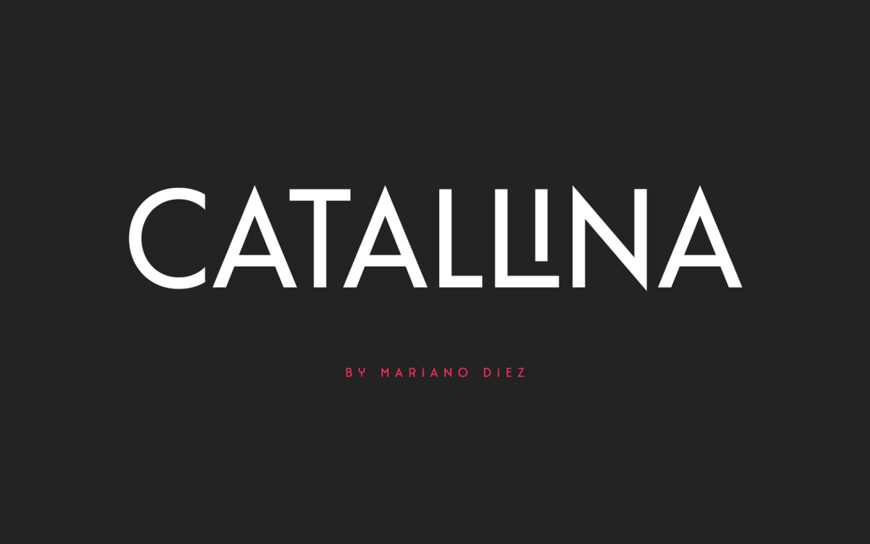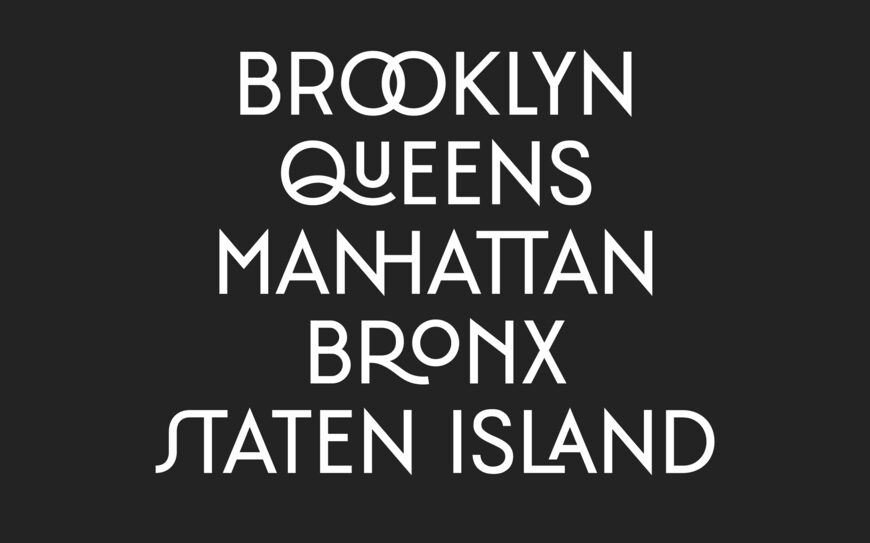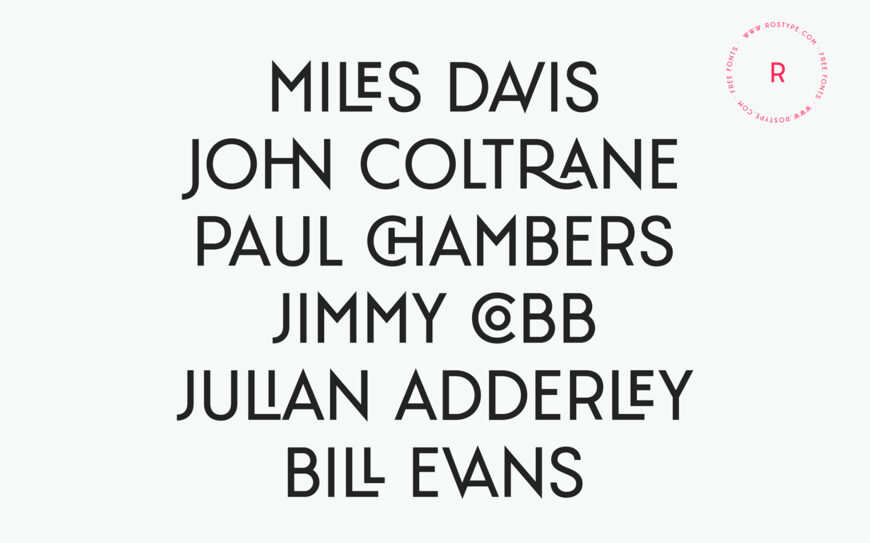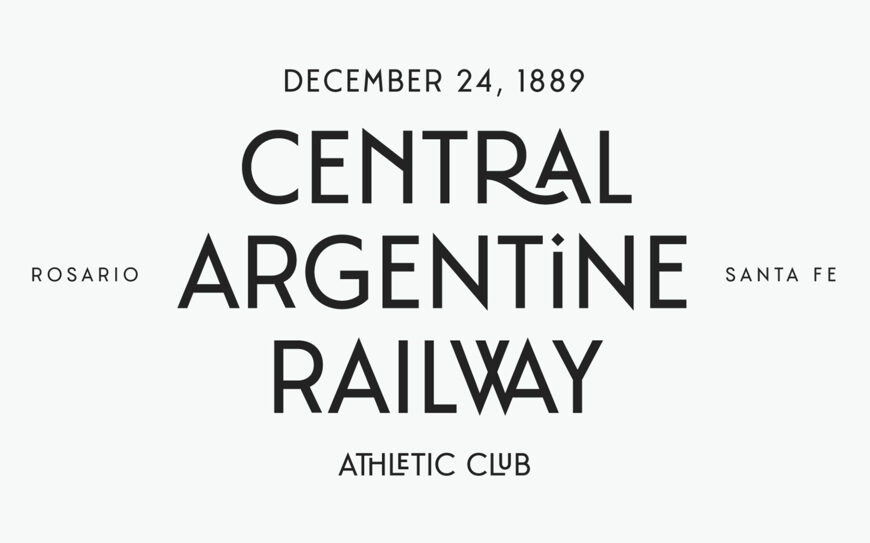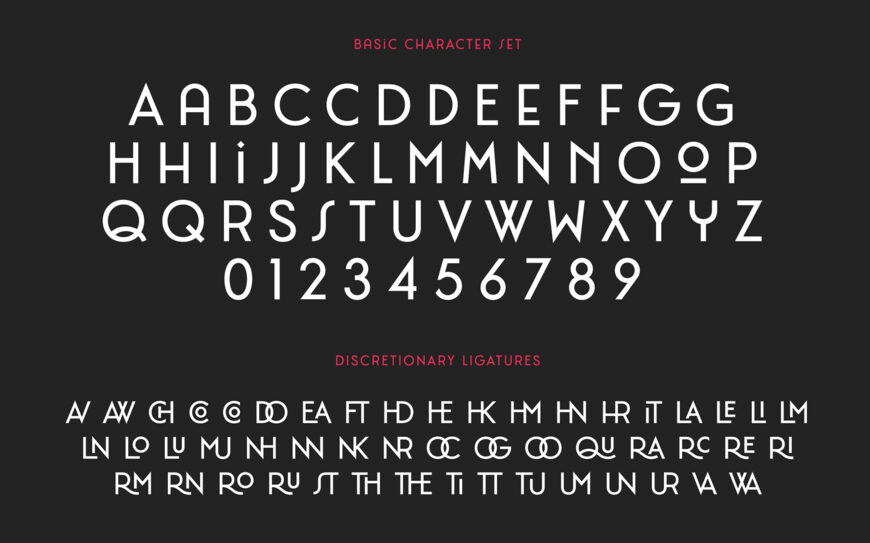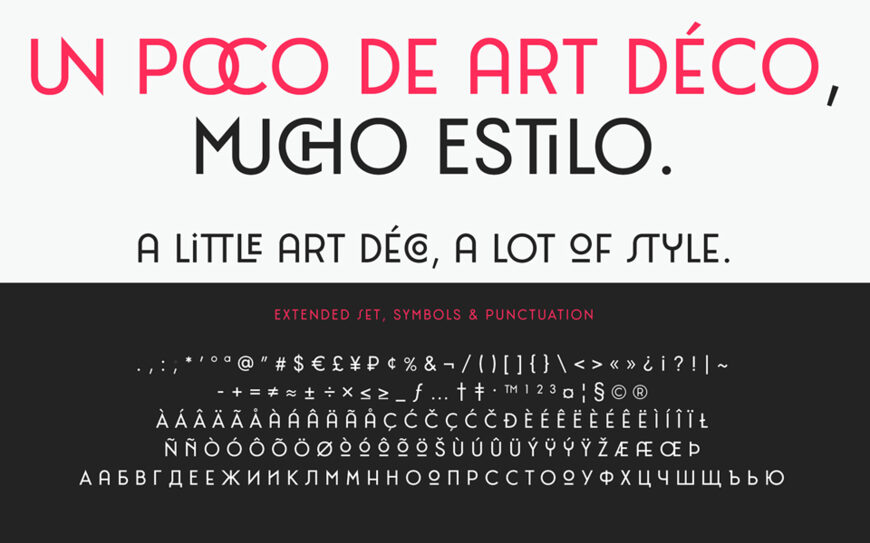
Catallina Font
Catallina is an all caps sans serif font, inspired by 1920s typography and art deco, designed by Mariano Diez. It contains alternate characters for many letters and more than 50 ligatures! Cyrillic set by Denis Ignatov.